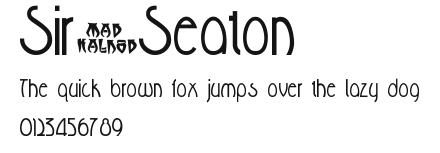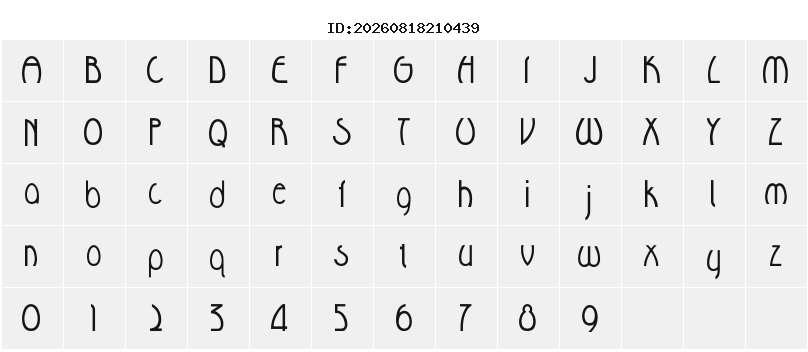
• Font Name: Sir_Seaton
• Full Font Name: Sir_Seaton
• PostScript Name: Sir_Seaton
• Copyright: Created by:Omega Design (Michael Lee & Michael Dolan 7-16-00)
About Sir_Seaton.ttf
Sir_Seaton.ttf is a modern, elegant sans-serif font designed for ultimate readability and visual harmony. Perfect for branding, headlines, web design, and print materials.